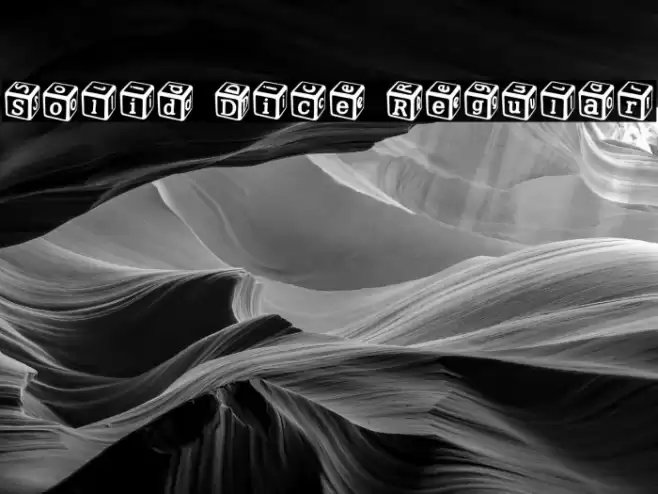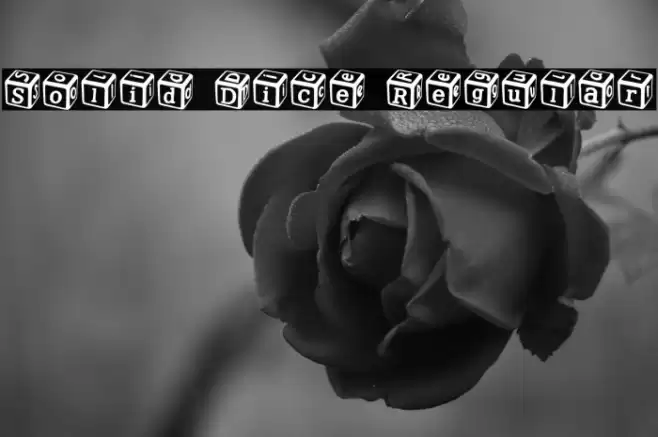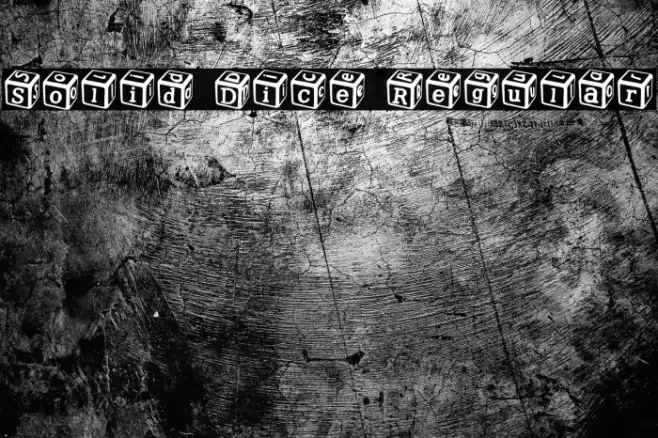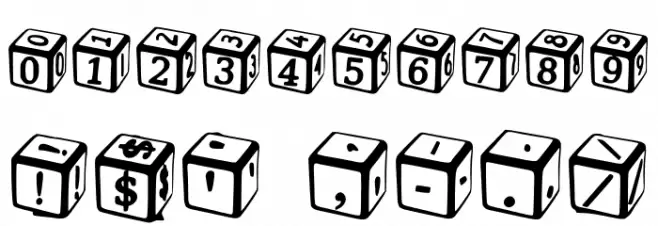
Solid Dice Regular Font
Solid Dice Regular Description
This font features a unique 3D dice design where each character is displayed on the face of a cube. The letters and numbers are bold and prominent, with a playful and decorative style that stands out. The edges of the cubes are outlined, giving a clear distinction between each character. This font is highly stylized, making it suitable for creative and eye-catching designs. The characters are evenly spaced within their cubes, providing a consistent and balanced appearance. The overall look is fun and engaging, perfect for projects that require a distinctive and memorable typeface.
A playful 3D dice-themed font with bold, decorative characters from Decorative fonts.
- Proposed Projects: Ideal for board game designs, children's book covers, playful posters, and creative branding.